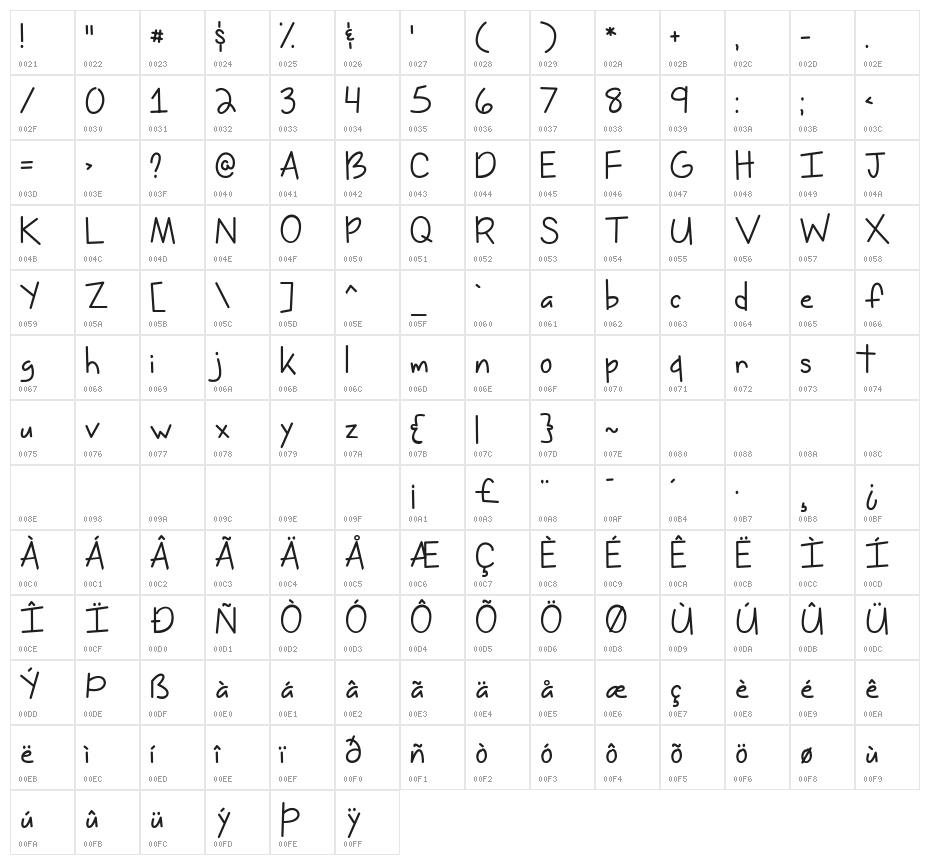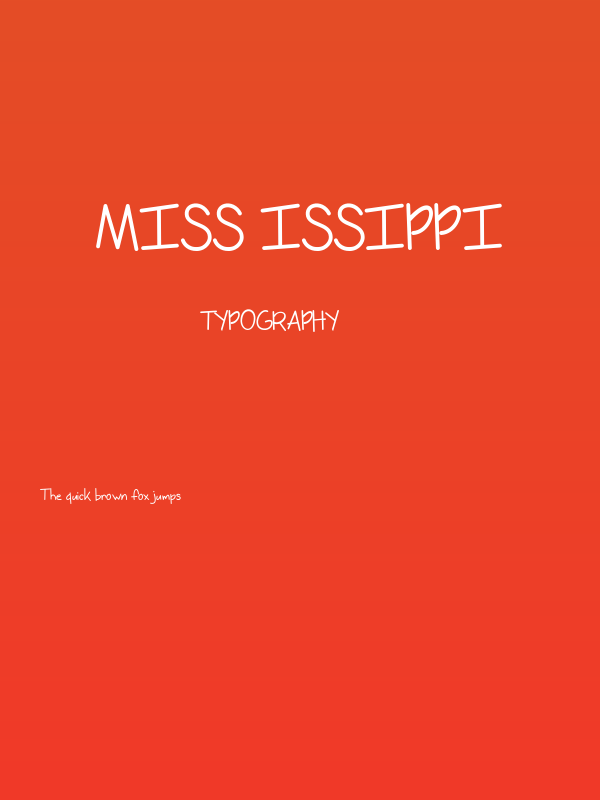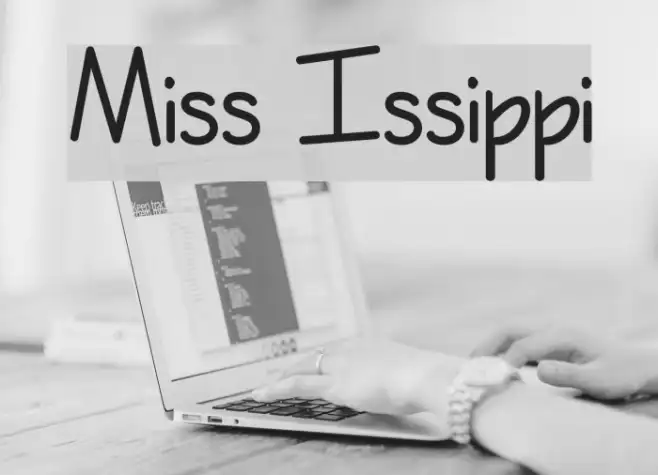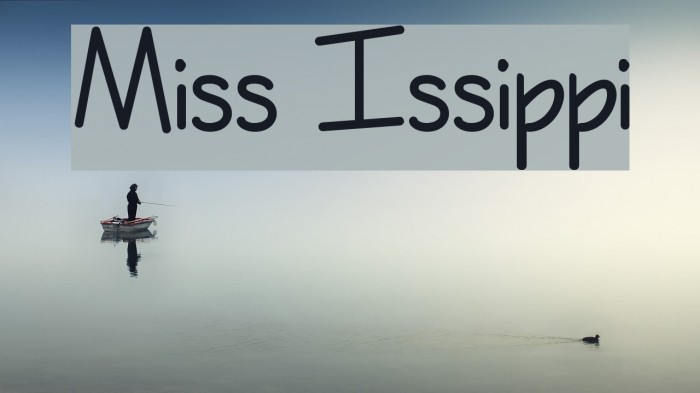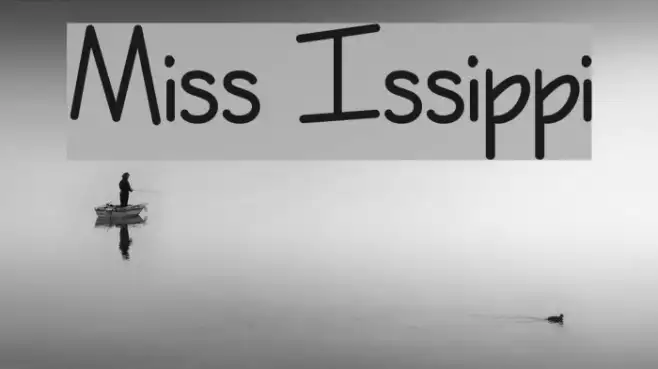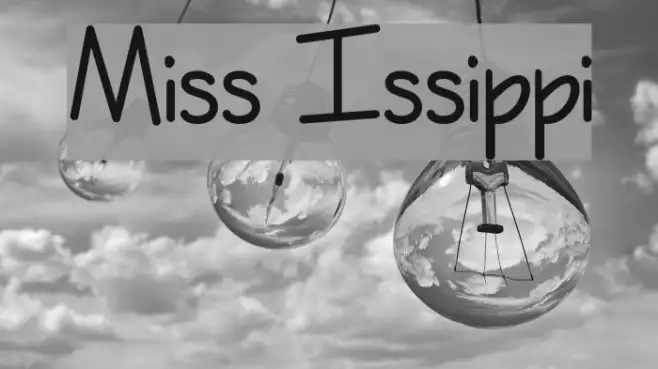
Miss Issippi Font
Miss Issippi Description
This playful and whimsical font features a handwritten style with a casual and friendly appearance. The characters are slightly irregular, adding a personal touch that mimics natural handwriting. The strokes are consistent in weight, providing a uniform look across all characters. The uppercase letters are tall and narrow, while the lowercase letters are more rounded and open, creating a nice contrast. The numbers and special characters maintain the same playful style, making the font versatile for various uses. Its informal and approachable design makes it suitable for creative projects that require a touch of personality.
| Proposed Projects | Ideal for greeting cards, children's books, casual invitations, and playful branding. |